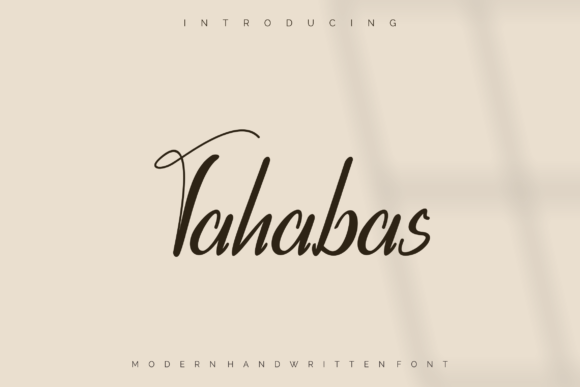
About Tahabas Font
Tahabas is a thin and authentic handwritten font. The font is suitable for any branding project like logo, t-shirt printing, and many more. It will look outstanding in a wide range of contexts.